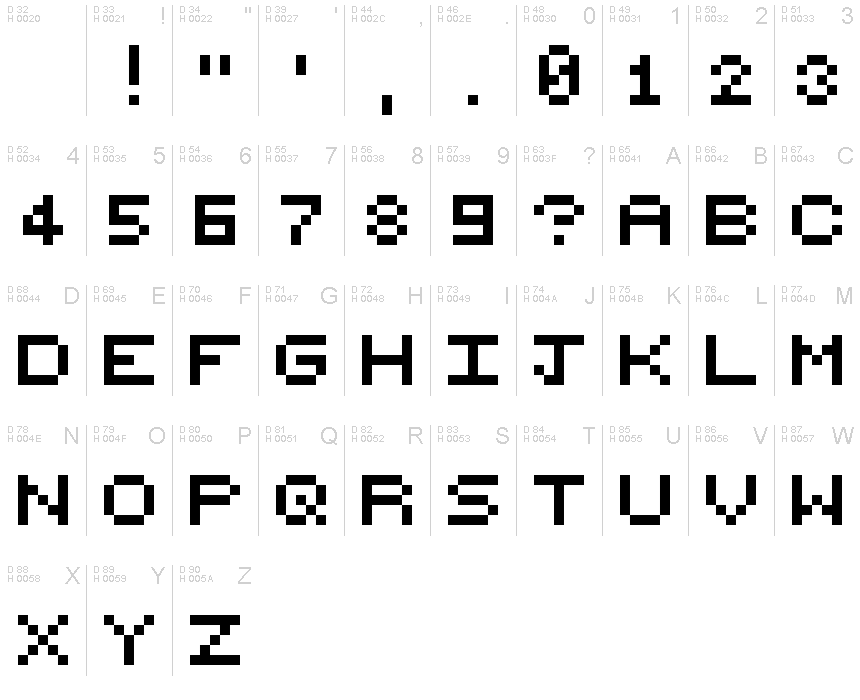
repPixel Regular Czcionka
repPixel font is a bold, pixelated bitmap typeface by Efe Kargın featuring uppercase letters only. Geometrical and block-like characters exhibit consistent thickness in vivid black color. Its playful mood makes this expanded modern font excellent in interactive experiences and visual communications aimed at youth.
A nostalgic combination of digital games’ visuals and contemporary ideas, it’s what best describes the theme of this free font. Widely used in posters as a display font or on t-shirts, webpage headers, gifts, or gaming applications.